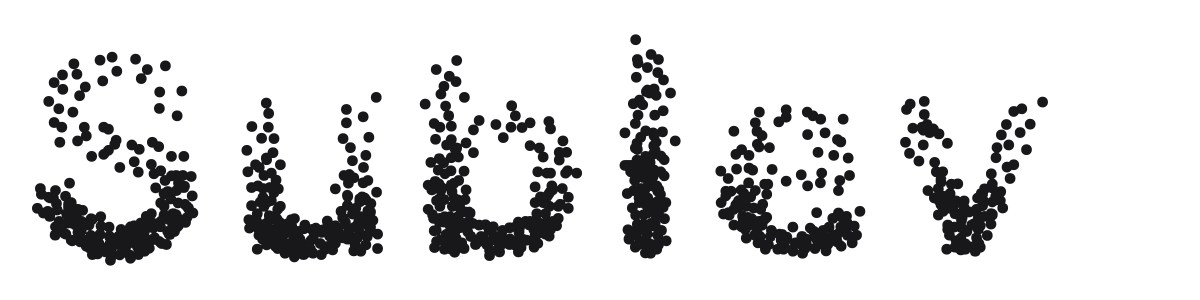
Sublev
Sublev is a sans-serif display font built entirely from clusters of tiny irregular dots, giving every character a grainy, disintegrating texture. The familiar structure of a clean sans survives underneath, which makes the contrast between legibility and noise part of the appeal. Works best large, where the dot pattern reads as intentional texture rather than degradation.